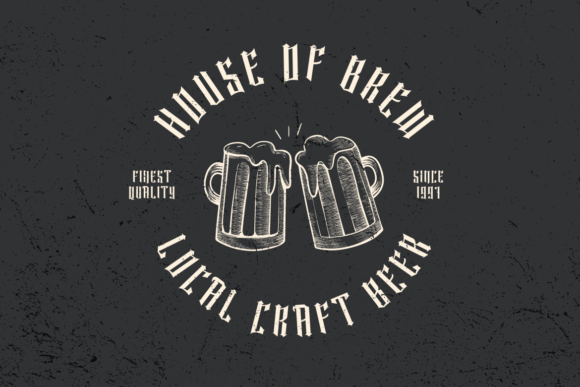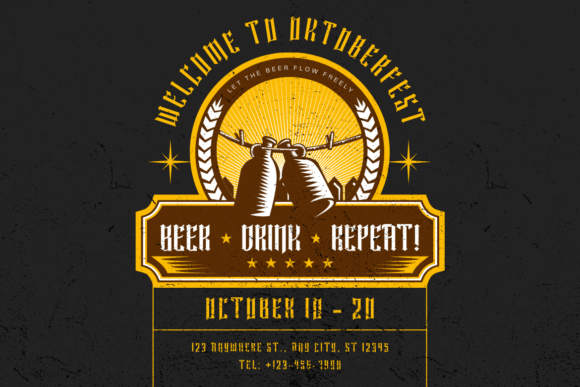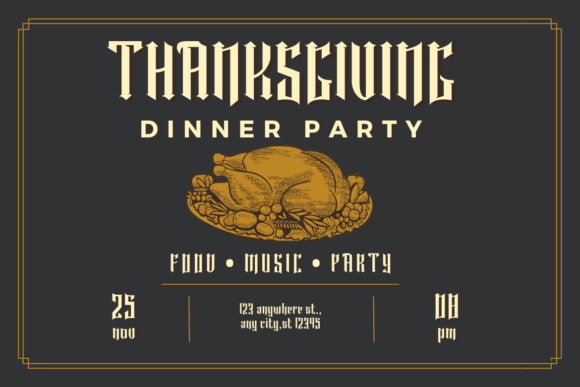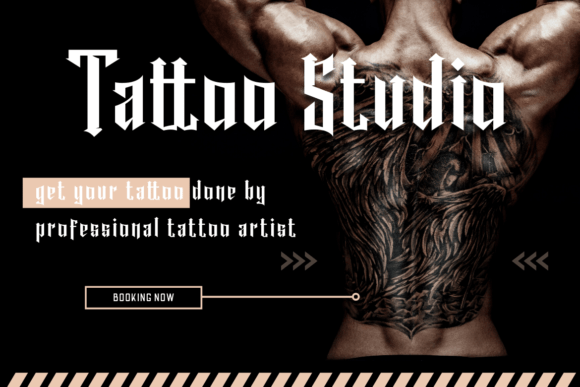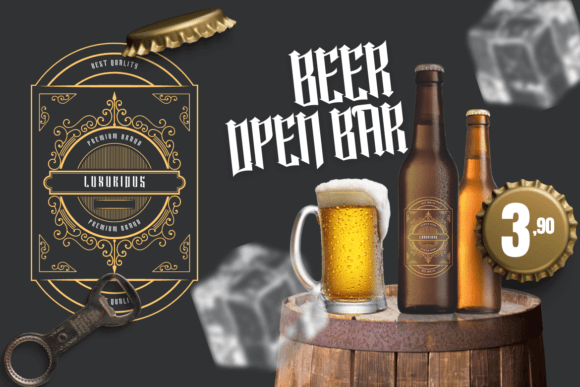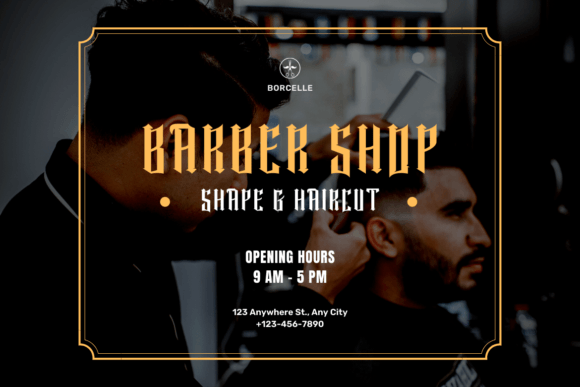
Introduction to Rawuh Font
Rawuh is a unique gothic black letter for your designs.
If you want to stand out from the crowd and add a touch of elegance, then this is the font you need The black letter style works perfectly for any Gothic-themed tattoo, label, packaging, branding, or project.
Key Features of Rawuh Font
Why Choose Rawuh Font?
Rawuh Font offers exceptional quality and versatility, making it a valuable addition to your design toolkit. Whether you’re creating for personal projects or commercial use, Rawuh Font delivers professional results.